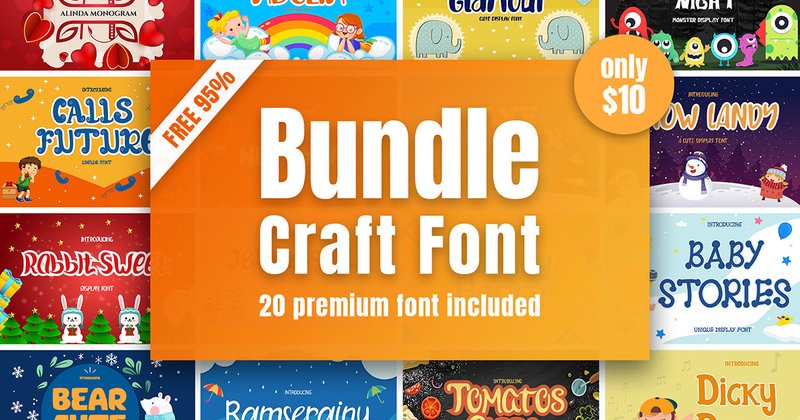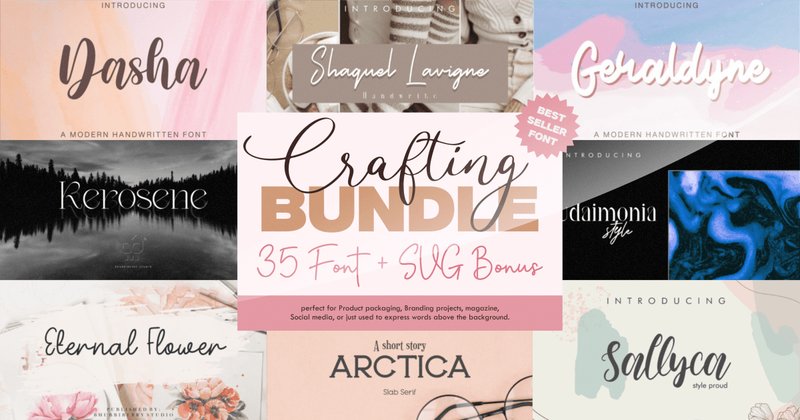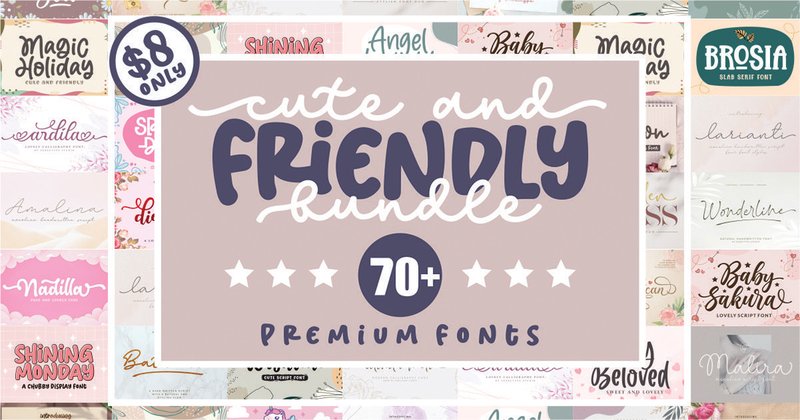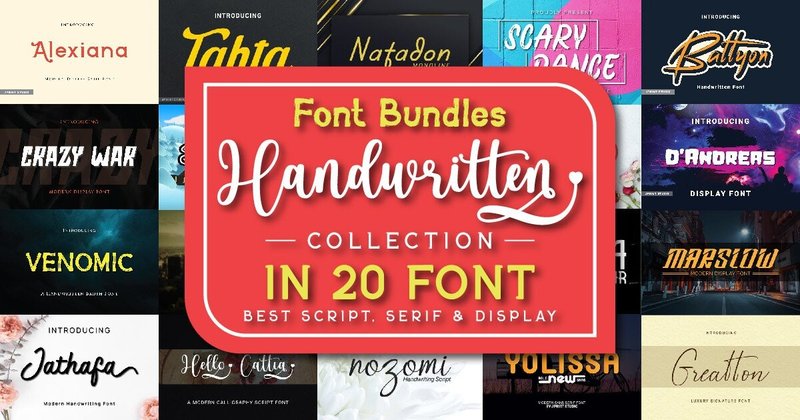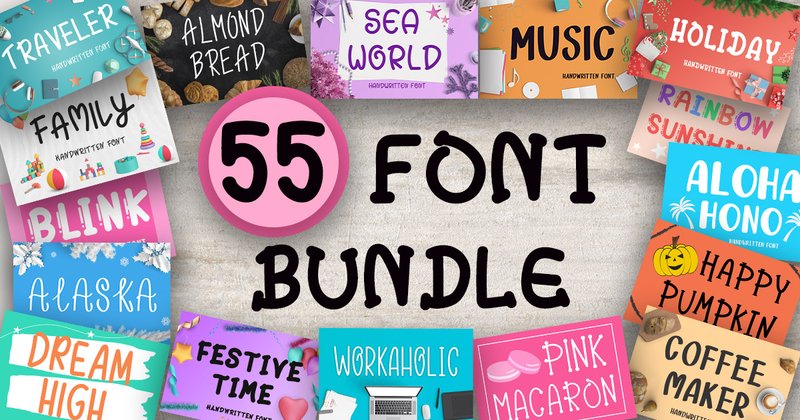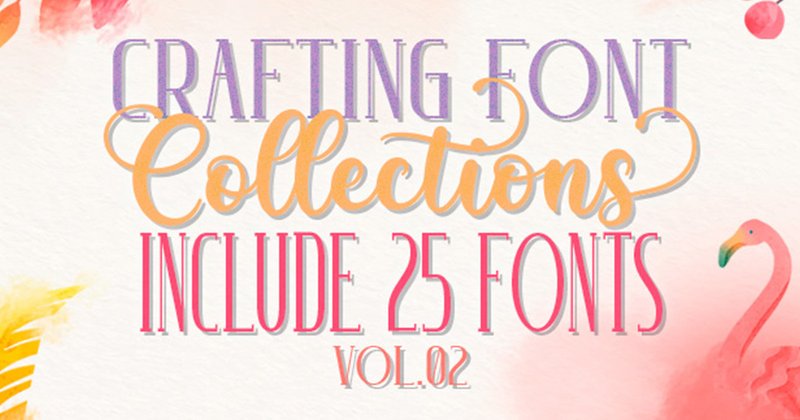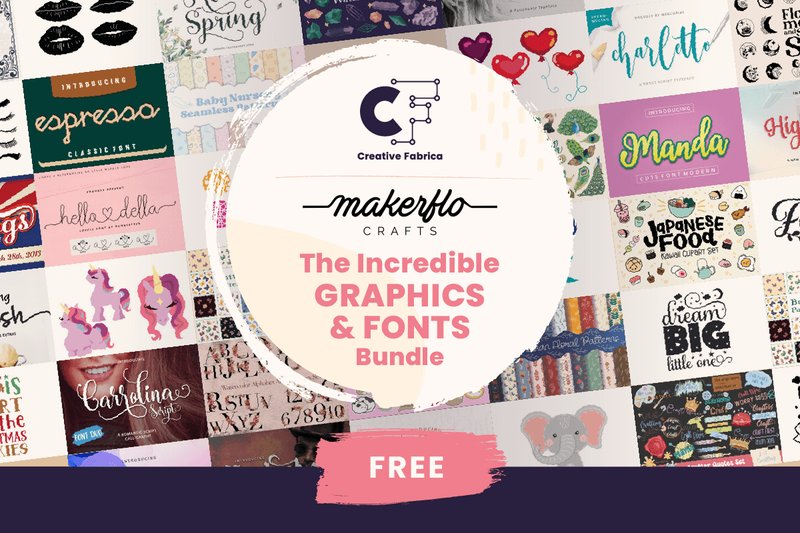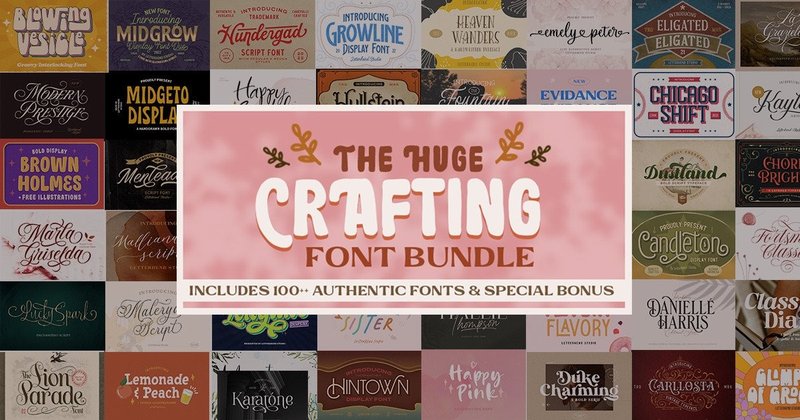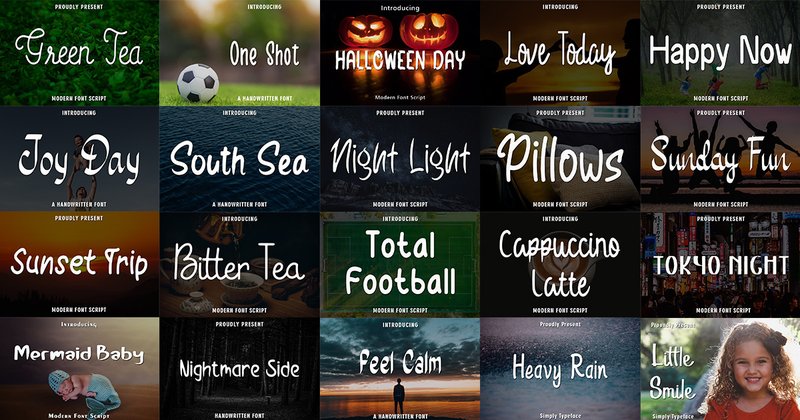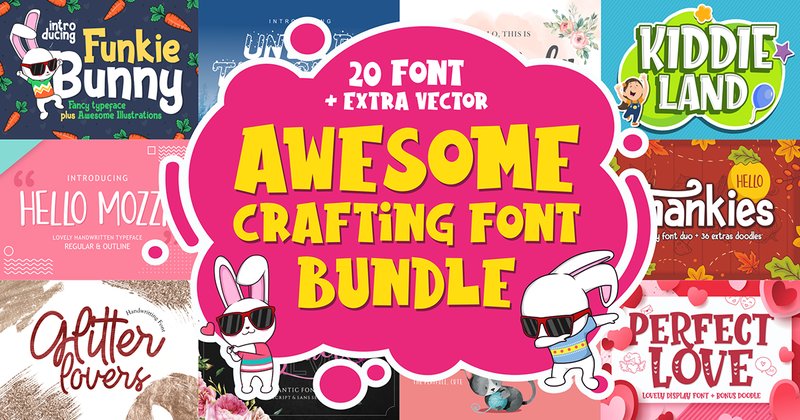
As we dive into 2026, the demand for authentic, personalized creations in the DIY and crafting world has never been higher. The trend is all about unique character and handmade charm, making the right font choice essential. Whether you’re using a Cricut, Silhouette, or designing for print, a versatile font bundle is your secret weapon for success. We’ve scoured the market to bring you the 22 most popular and impactful crafting font bundles available right now, packed with everything from elegant scripts to playful display styles perfect for bringing your 2026 projects to life with a professional touch.
1. Crafting Fonts Bundle (by Alfinart)
Crafting Fonts Bundle (by Alfinart) If you are looking for a comprehensive collection that blends artisanal charm with professional polish, this bundle is a must-have. Alfinart has curated a stunning selection of handwritten scripts and elegant display fonts that feel both personal and high-end. This toolkit provides the typographic foundation to give your projects a cohesive, boutique feel without the boutique price tag, making it an incredible value for crafters and designers alike.
- A versatile collection featuring a mix of elegant scripts and clean, complementary typefaces.
- Designed to work seamlessly across both digital branding and physical product applications.
- Creating cohesive branding for small businesses, boutiques, and Etsy shops.
- Designing beautiful product packaging, labels, and custom merchandise.
- Crafting stunning social media graphics, quote images, and elegant watermarks.
2. Crafting SVG and Fonts Bundle (by bhubbiberrystudio)
Crafting SVG and Fonts Bundle (by bhubbiberrystudio) Charming and incredibly versatile, this collection is a digital treasure chest for the modern DIY enthusiast. It packs a powerful one-two punch, combining a library of ready-to-cut SVG graphics with a selection of stylish fonts that feel both current and timeless. Whether you’re personalizing a t-shirt or designing fresh branding materials, this bundle provides the essential building blocks for projects that feel polished and deeply personal, all while being exceptionally user-friendly for creators at any skill level.
- Creating custom apparel and accessories using heat-transfer vinyl.
- Personalizing home decor items like glass panes, mugs, and wall art.
- Designing cohesive branding packages, social media graphics, and product packaging.
- Serving as a foundation for digital embroidery and other fabric crafts.
3. Cute and Friendly Fonts Bundle (by Subectype)
Cute and Friendly Fonts Bundle (by Subectype) feels less like a digital asset and more like borrowing a friend’s beautiful, bubbly handwriting for your projects. This collection is a treasure trove of warmth, featuring a delightful mix of script, display, and serif styles that all share a common thread of approachable charm. Each font carries the organic, imperfect quality of handwritten lettering, making every design feel personal and handcrafted. It’s the kind of bundle that instantly brings a smile to your face, perfect for injecting pure, unadulterated joy into any creative endeavor.
- A versatile mix of script, handwritten, display, and serif font styles.
- Includes fun extra characters and glyphs to personalize your designs.
- Features multi-language support and a full premium commercial license.
- Personalized Cricut and Silhouette projects, like custom apparel, mugs, and home decor.
- Branding for small businesses with a playful identity, such as bakeries, handmade shops, or children’s boutiques.
- Creating cheerful social media graphics, quote images, and Instagram stories.
- Designing adorable invitations for birthdays, baby showers, and seasonal events.
4. The Swirly Fonts Bundle (by Amarlettering)
The Swirly Fonts Bundle (by Amarlettering) exudes a timeless romantic charm, delivering an absolutely massive collection of 60 elegant script fonts designed to elevate any crafting project. This bundle is a treasure trove for creators, with each font family offering fluid, graceful letterforms and an abundance of decorative extras. The sheer variety ensures you have the perfect script for everything from delicate wedding stationery to bold branding, all unified by a sophisticated, handcrafted aesthetic that feels both personal and luxurious.
- A vast collection of 60 distinct and elegant script font families.
- PUA encoded for easy access to a wealth of extra glyphs, ornate swashes, and ligatures in any design software.
- Craft-friendly designs with clean, smooth lines ideal for vinyl cutting, engraving, and foiling.
- Designing bespoke wedding invitations, place cards, and romantic event stationery.
- Personalizing gifts and home decor with vinyl decals for Cricut or Silhouette machines.